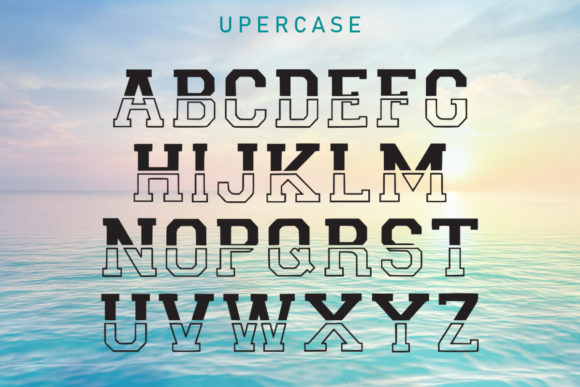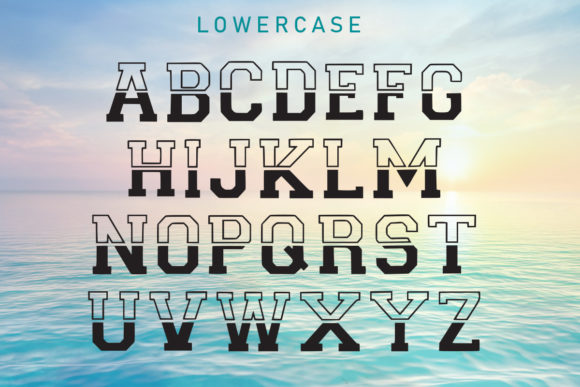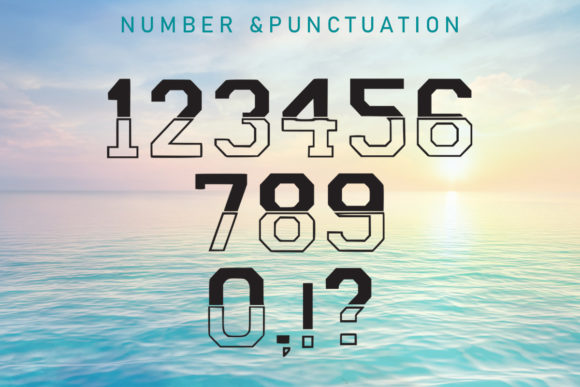
Introducing Halfy Font: Elevate Your Creativity with a Modern yet Whimsical Style
Are you a designer, crafter, or creative enthusiast looking for a font that can take your projects to the next level? Look no further than Halfy Font, an incredibly cool display font that combines modern style with a touch of whimsy. With Halfy, you can bring each of your creative ideas to the highest level and make them shine like never before.
What Makes Halfy Font So Special?
Halfy Font is a unique and versatile typeface that boasts a distinctive modern yet whimsical style. Its sleek lines, curves, and geometric shapes make it perfect for a wide range of creative projects, from branding and advertising to packaging, posters, and more. Whether you’re looking to create a bold statement or add a touch of playfulness to your design, Halfy Font is the perfect choice.
Key Features of Halfy Font
- Modern yet Whimsical Style: Halfy Font boasts a fresh and contemporary look with a touch of playfulness, making it perfect for creative projects that require a unique and eye-catching typeface.
- Highly Versatile: With its clean lines, curves, and geometric shapes, Halfy Font can be used for a wide range of projects, from digital designs to print materials.
- Easily Readable: Despite its modern and stylized look, Halfy Font remains highly readable, making it perfect for headlines, titles, and short paragraphs of text.
- Extensive Language Support: Halfy Font supports a wide range of languages, making it a great choice for global brands and creative projects.
How to Use Halfy Font in Your Creative Projects
Halfy Font can be used in a variety of creative projects, including:
- Branding and Advertising: Use Halfy Font to create bold and eye-catching logos, taglines, and ad campaigns that grab attention and leave a lasting impression.
- Packaging Design: Add a touch of modern whimsy to your product packaging with Halfy Font, making your products stand out on store shelves.
- Poster Design: Create stunning posters and flyers with Halfy Font, perfect for promoting events, concerts, or product launches.
- Digital Design: Use Halfy Font in your digital designs, such as website headers, social media graphics, and mobile app interfaces.
Tips and Tricks for Getting the Most Out of Halfy Font
To get the most out of Halfy Font, here are some tips and tricks to keep in mind:
- Experiment with Font Sizes and Colors: Halfy Font looks great in a variety of font sizes and colors, so don’t be afraid to experiment and find the perfect combination for your project.
- Pair with Other Fonts: Halfy Font pairs well with other fonts, so try combining it with a serif or script font to add contrast and visual interest to your design.
- Use it Sparingly: Halfy Font is a bold and eye-catching typeface, so use it sparingly to avoid overwhelming your design.